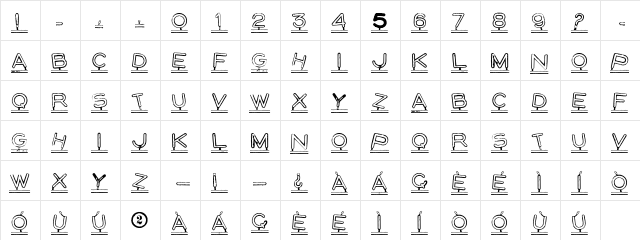
MontaplexOutline Regular Font Preview
MontaplexOutline Regular
MontaplexOutline Regular Font Details
Design Context for MontaplexOutline Typeface
MontaplexOutline is built around its visual character rather than neutral utility — its distinctive forms are designed to make an impression at display sizes.
Font Pairing: Pair with a clean neutral sans-serif for body copy to let MontaplexOutline's character lead without overwhelming the composition.
Pro Tip: Treat MontaplexOutline as the centrepiece of your typographic hierarchy. One strong heading set in a decorative face can carry an entire layout.